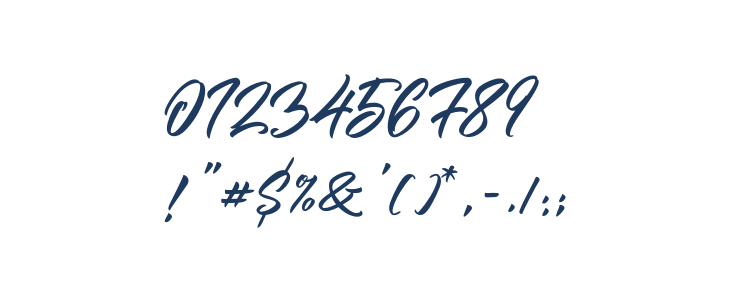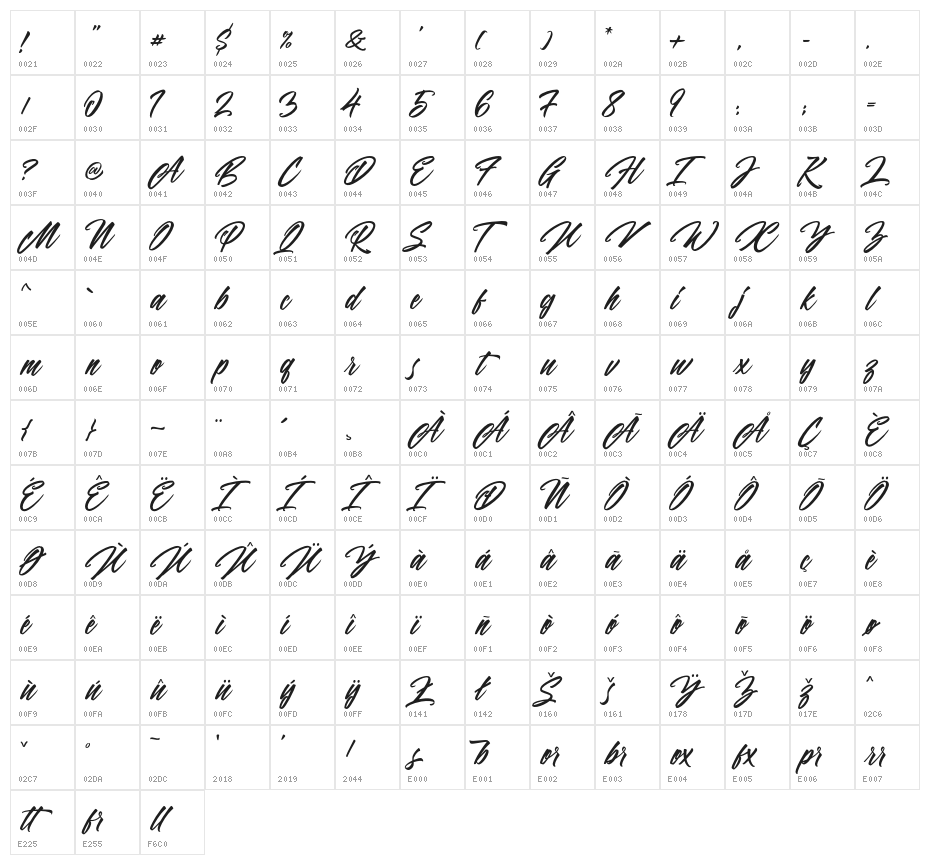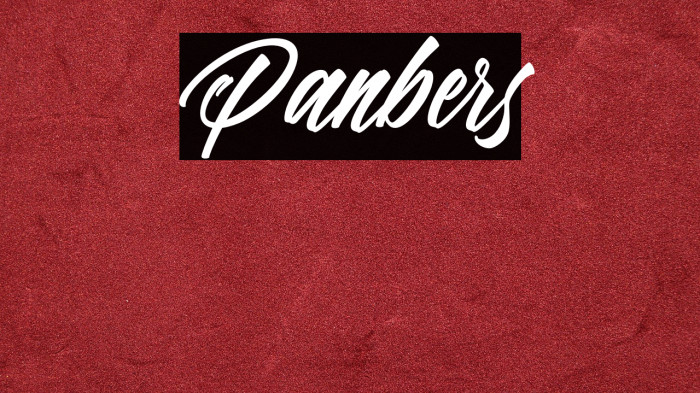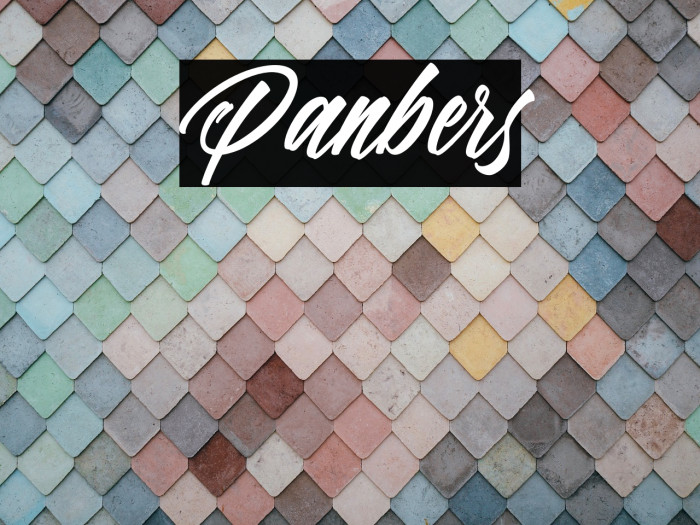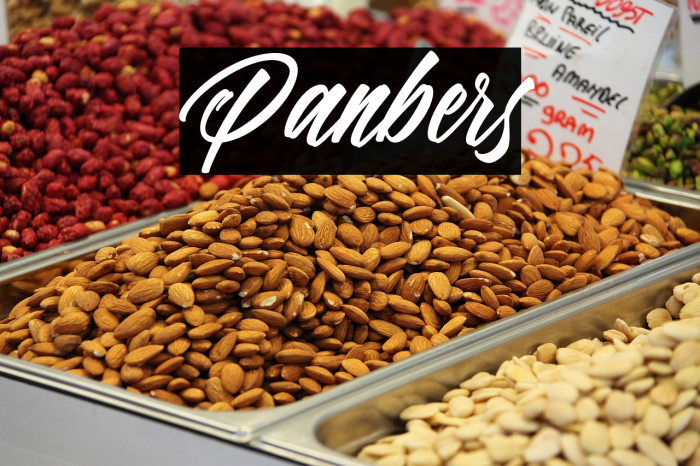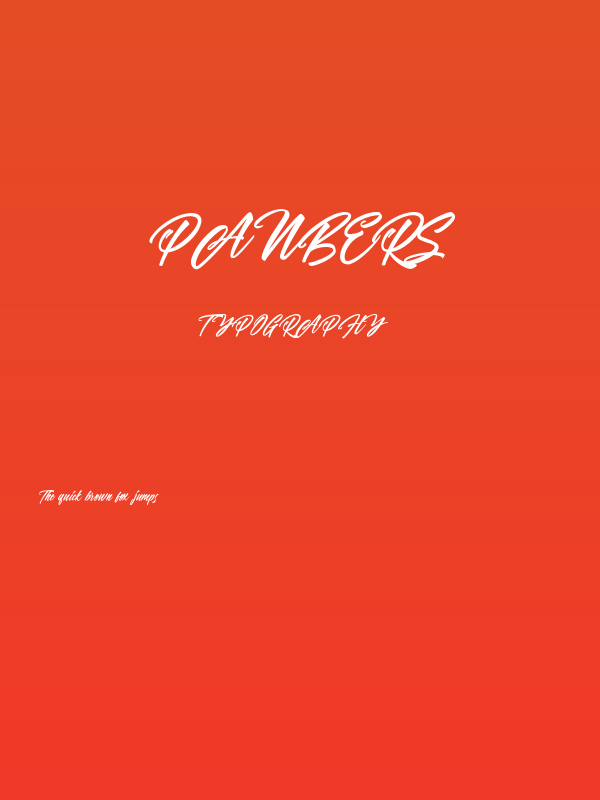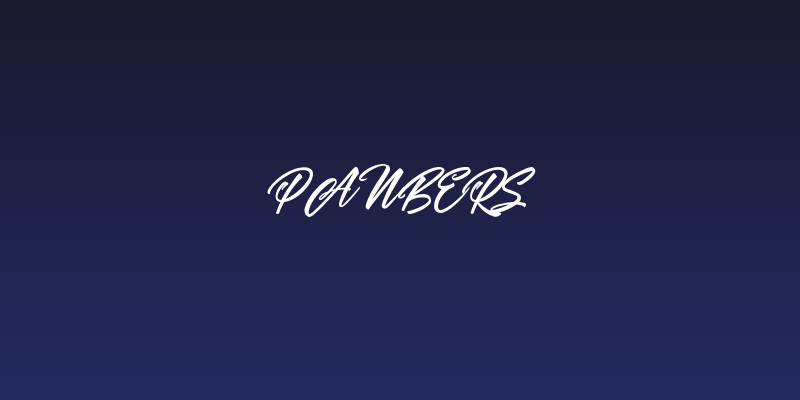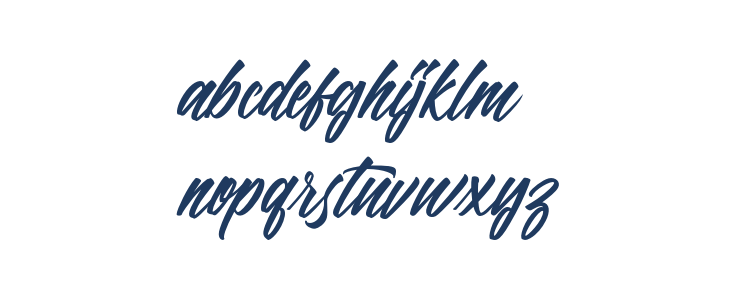
Panbers Font
Panbers Description
This font features a dynamic and flowing script style, characterized by its elegant and cursive letterforms. The uppercase letters exhibit a graceful, sweeping motion with a slight slant, giving them a sense of movement and sophistication. The lowercase letters maintain a consistent fluidity, with smooth connections between characters that enhance readability. The numerals and special characters are crafted with the same attention to detail, ensuring a cohesive look across all elements. The overall design is both stylish and versatile, making it suitable for a variety of creative applications.